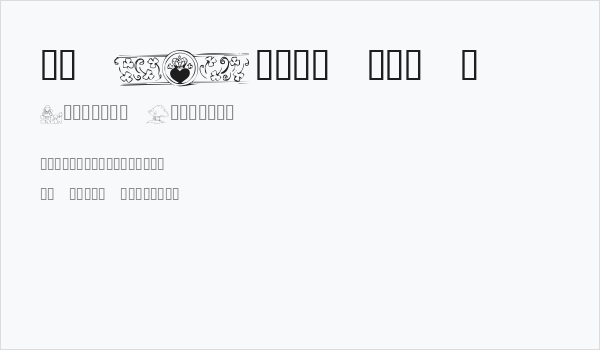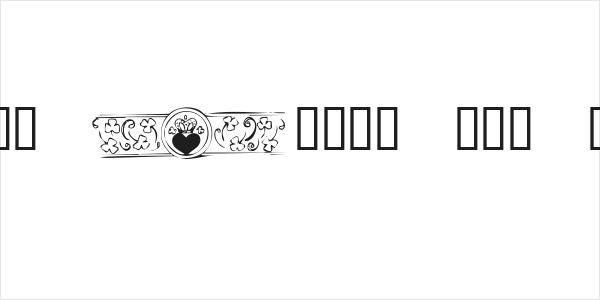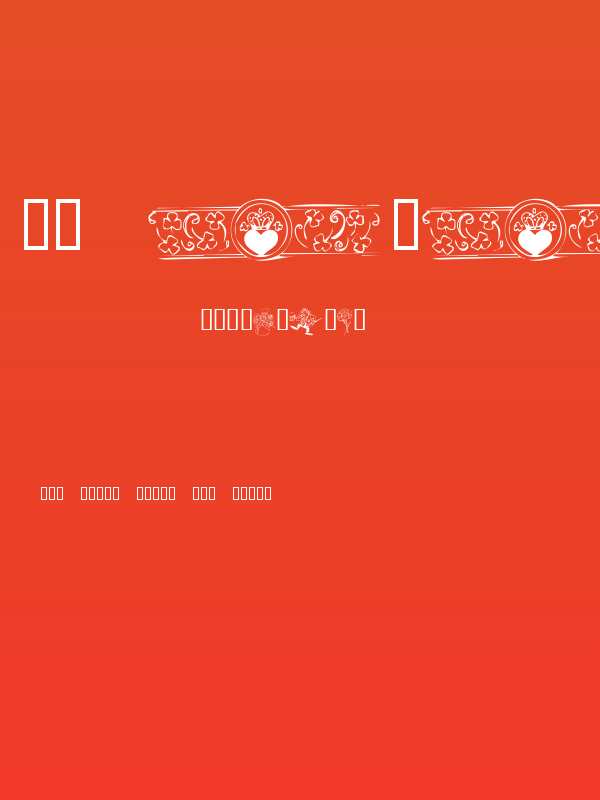
KR Irish Kat 2 Font
KR Irish Kat 2 Description
This is not a valid font. The image contains decorative elements and illustrations rather than a traditional set of characters. The design features whimsical and playful imagery, including leprechauns, mushrooms, and other St. Patrick's Day-themed graphics. These elements are more suited for decorative purposes rather than functional typography.
| Use Case | Decorative elements for themed designs. |
| Proposed Projects | Use these decorative elements for themed invitations, greeting cards, or festive banners. |